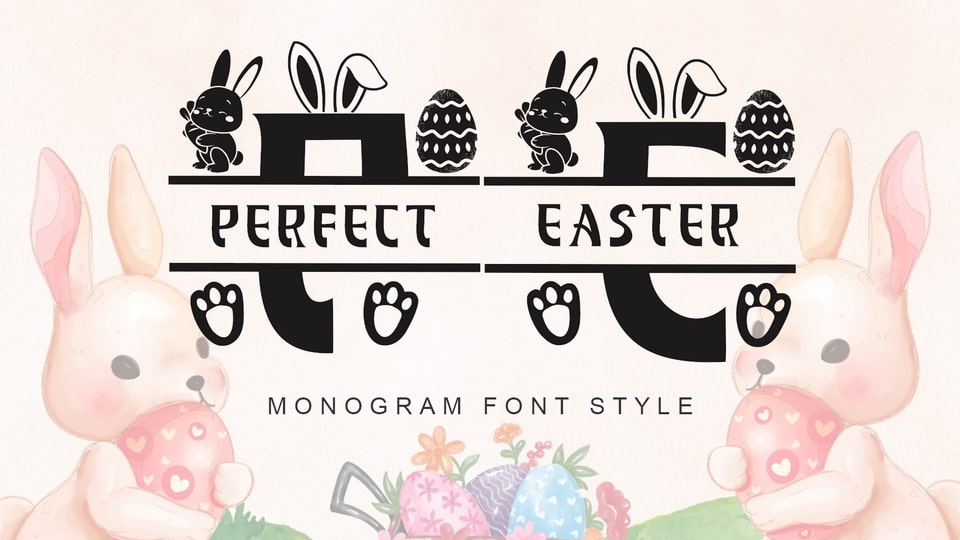
Download Perfect Easter Monogram font, a unique and elegant monogram typeface. It is very suitable for banners, posters, spring, summer, easter, branding, stickers, logos, procreate, invitations and others.